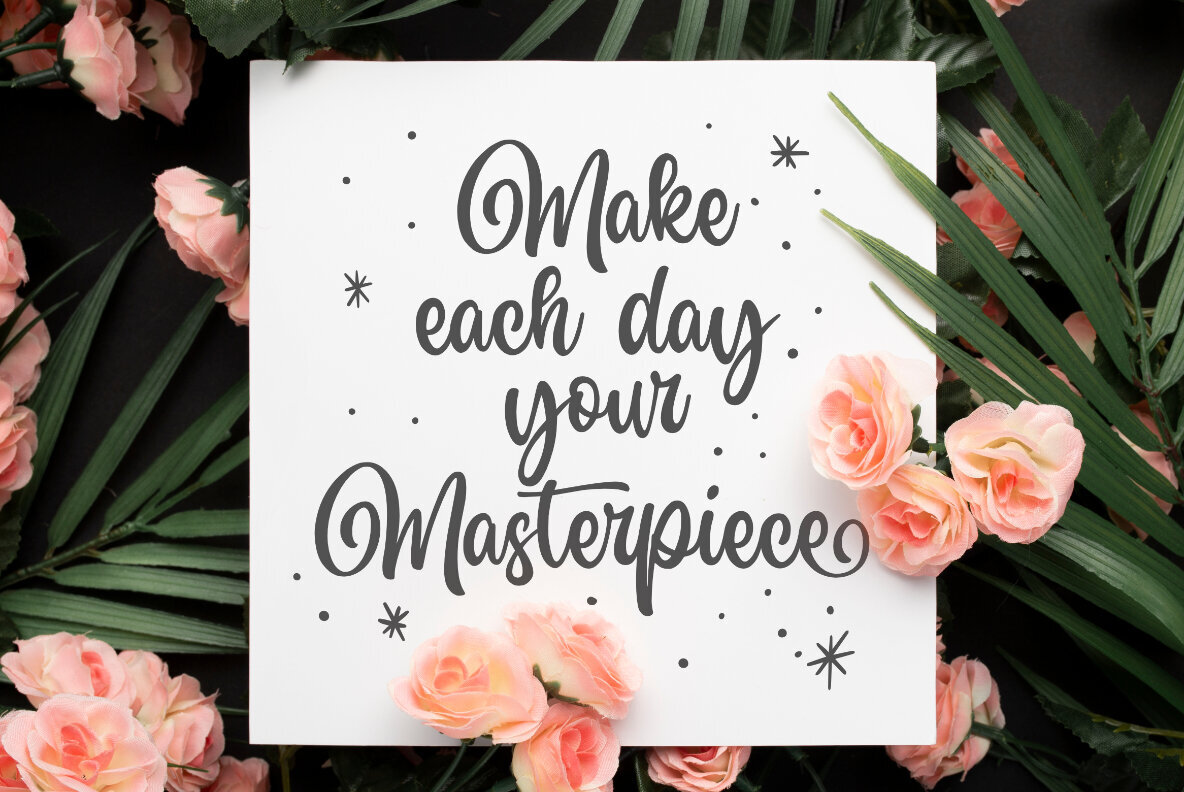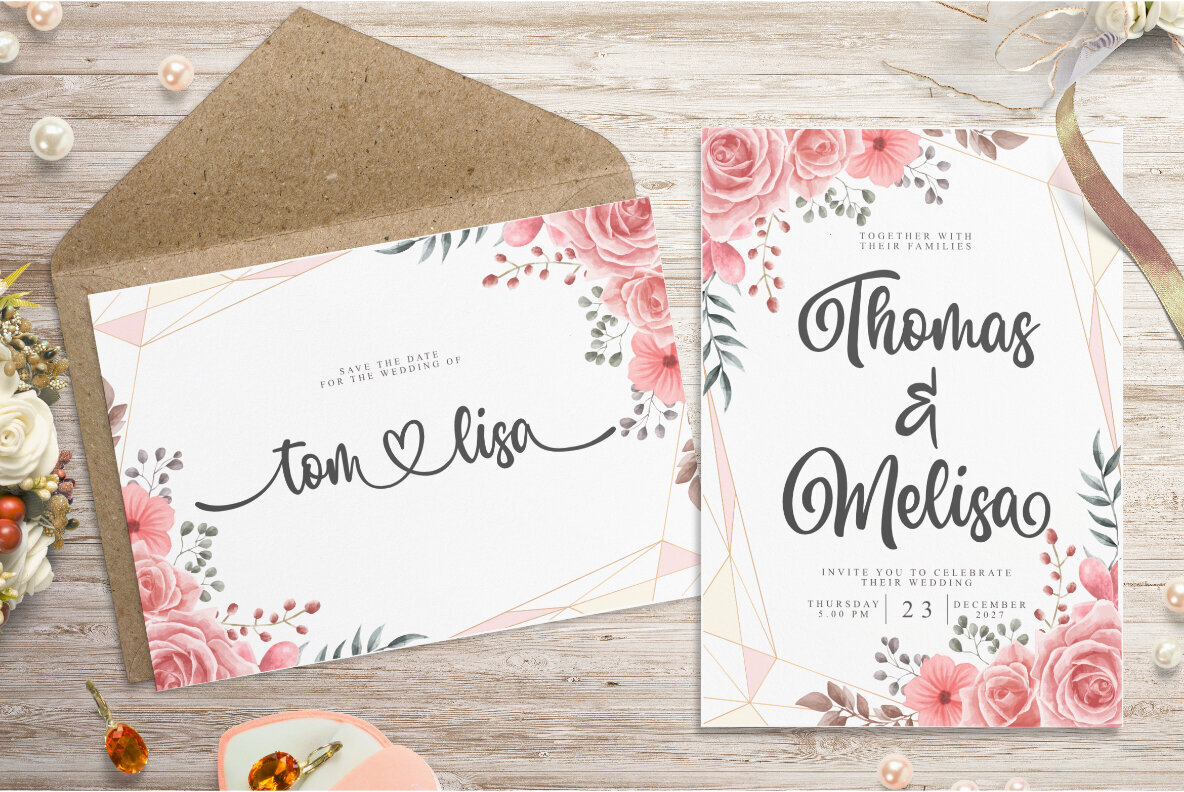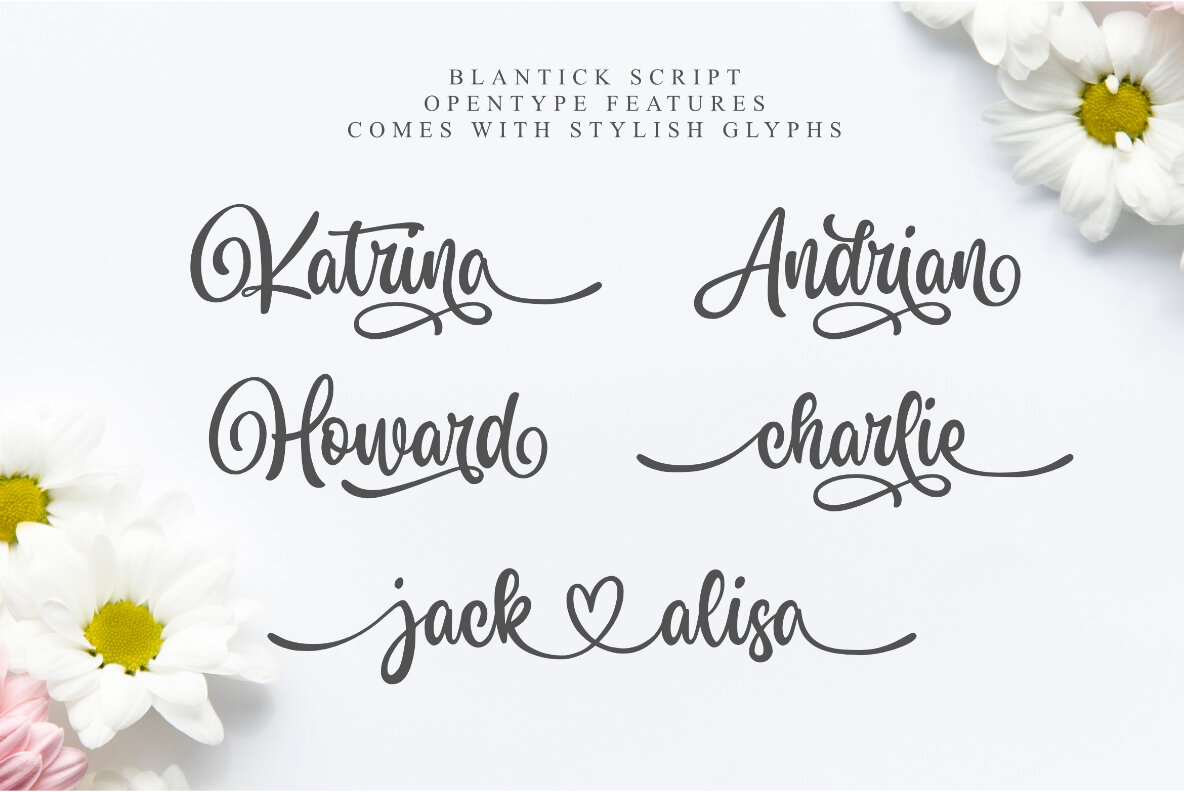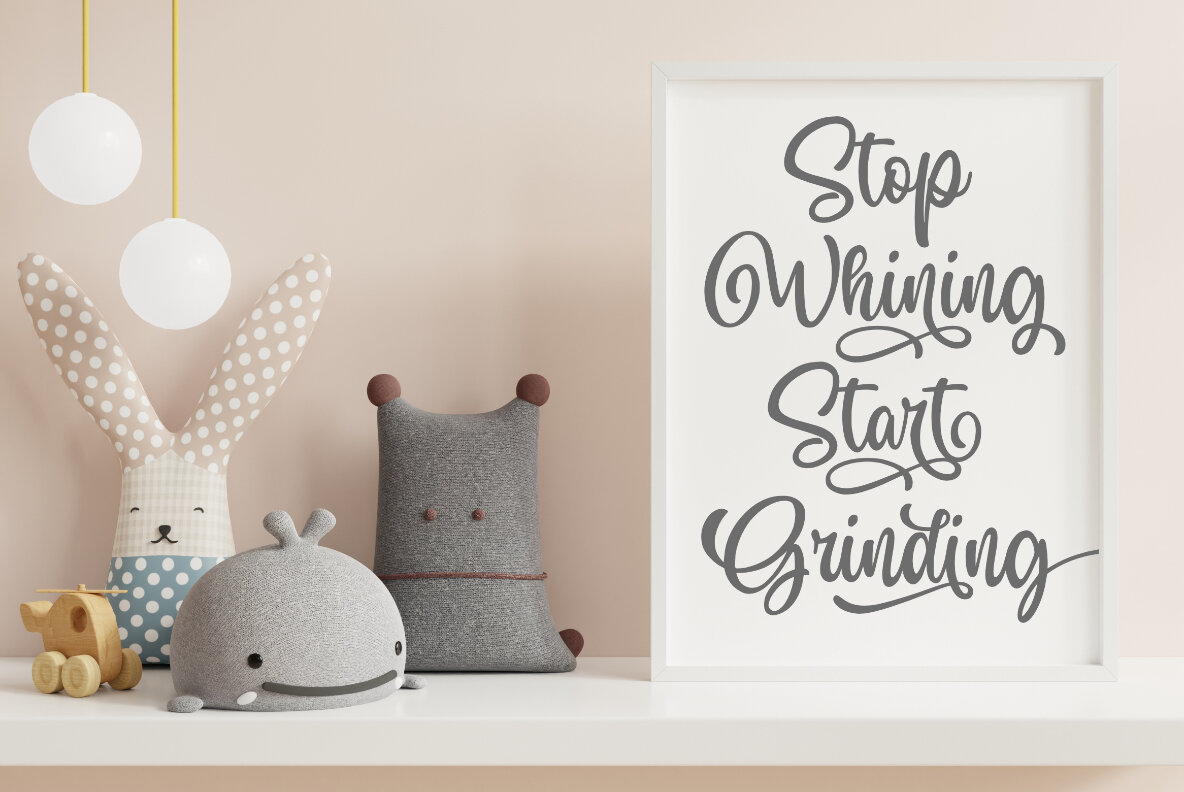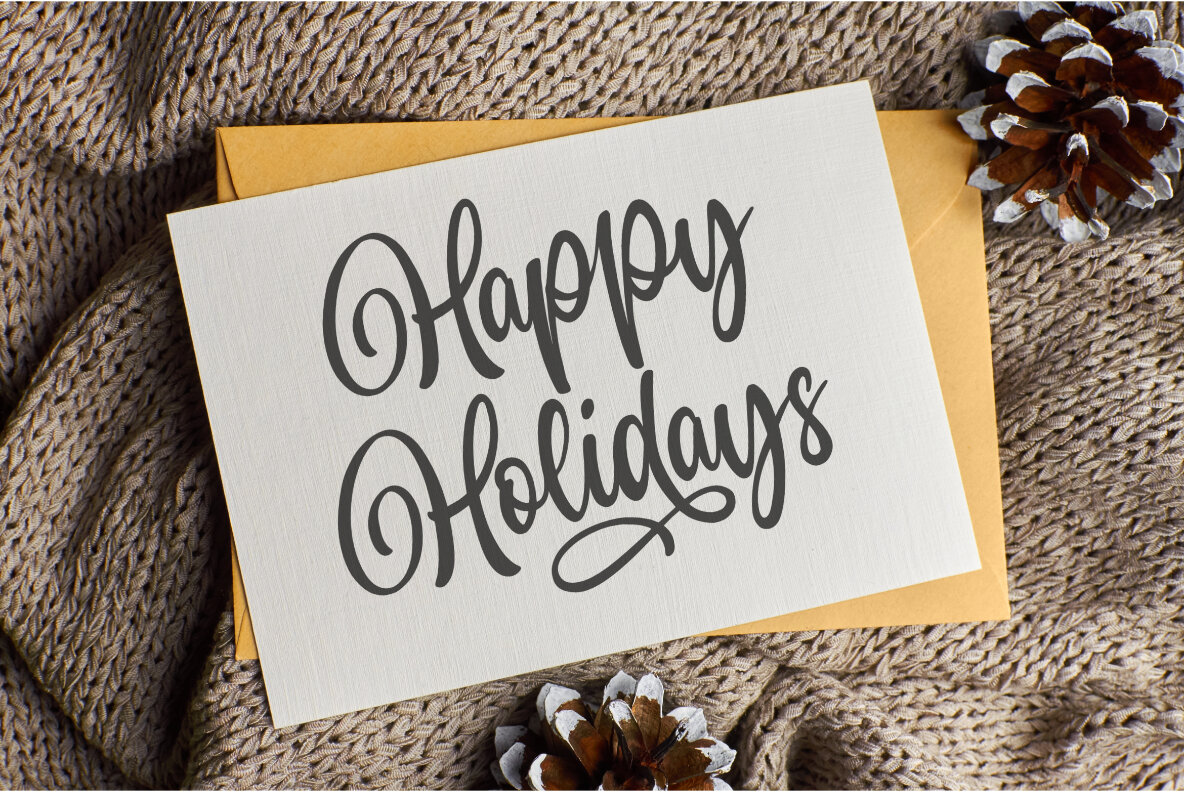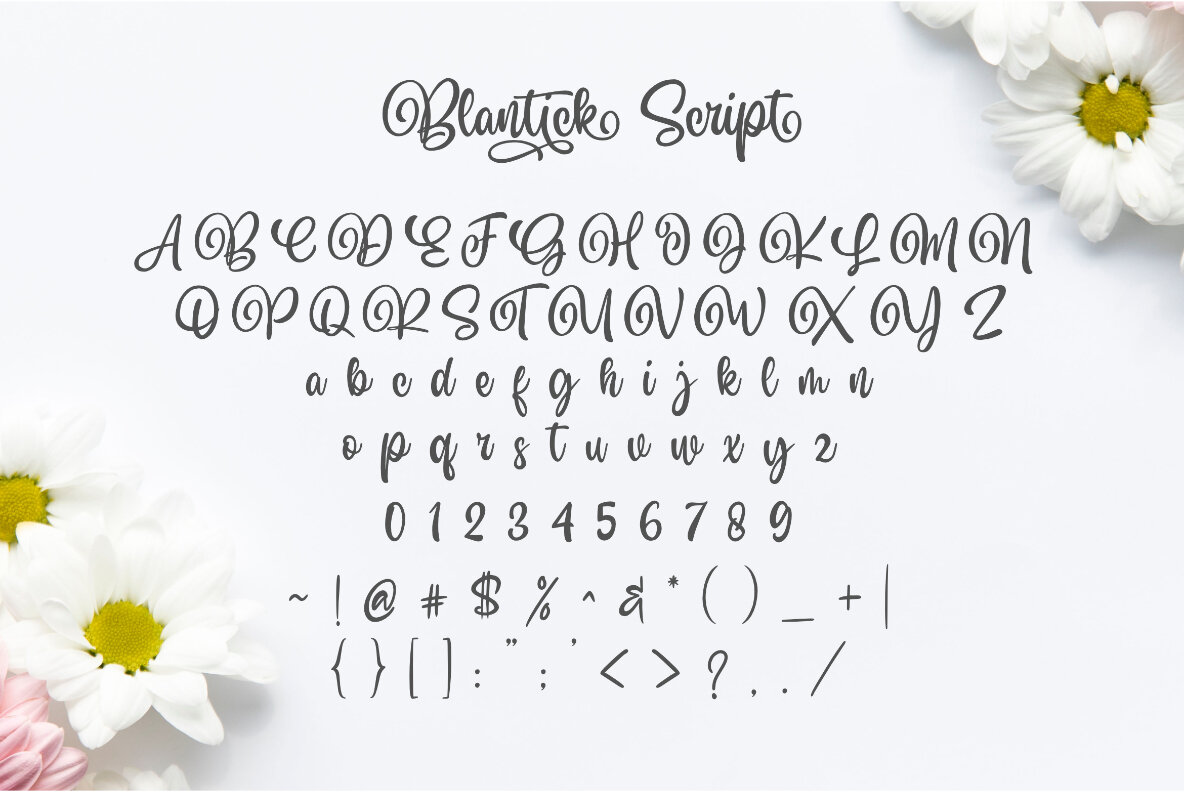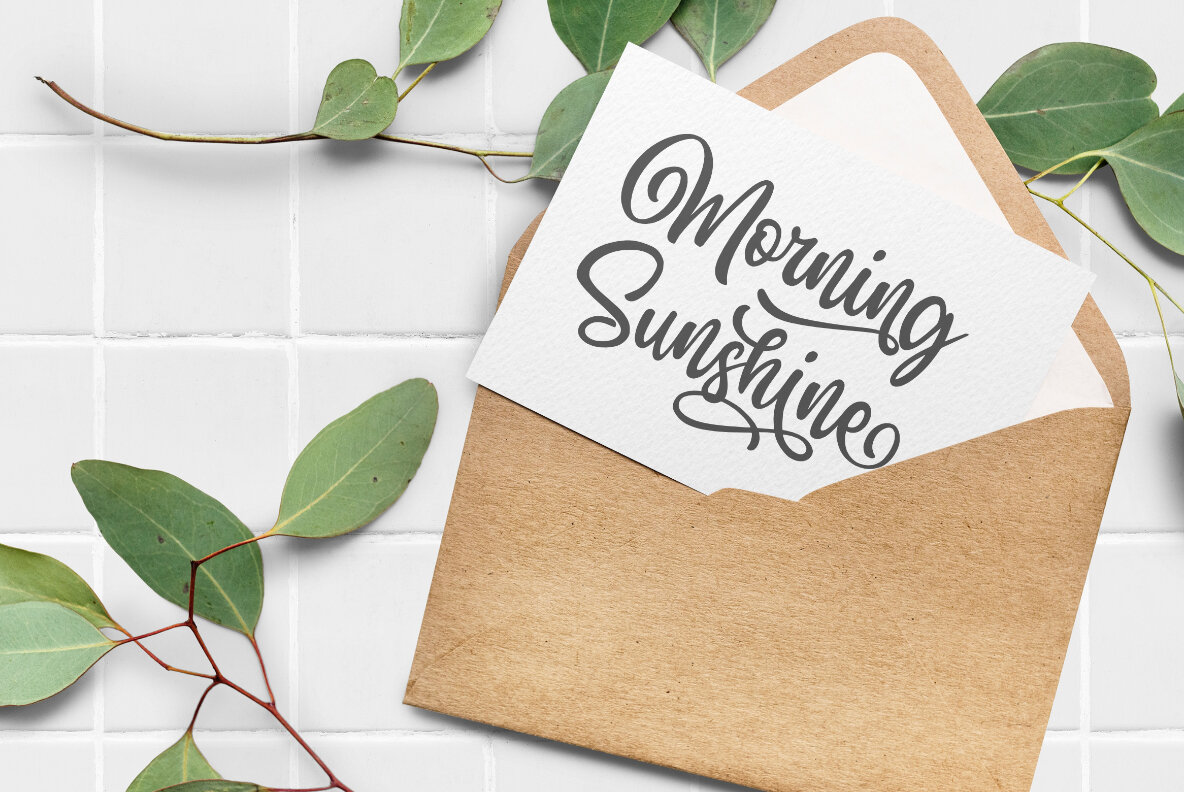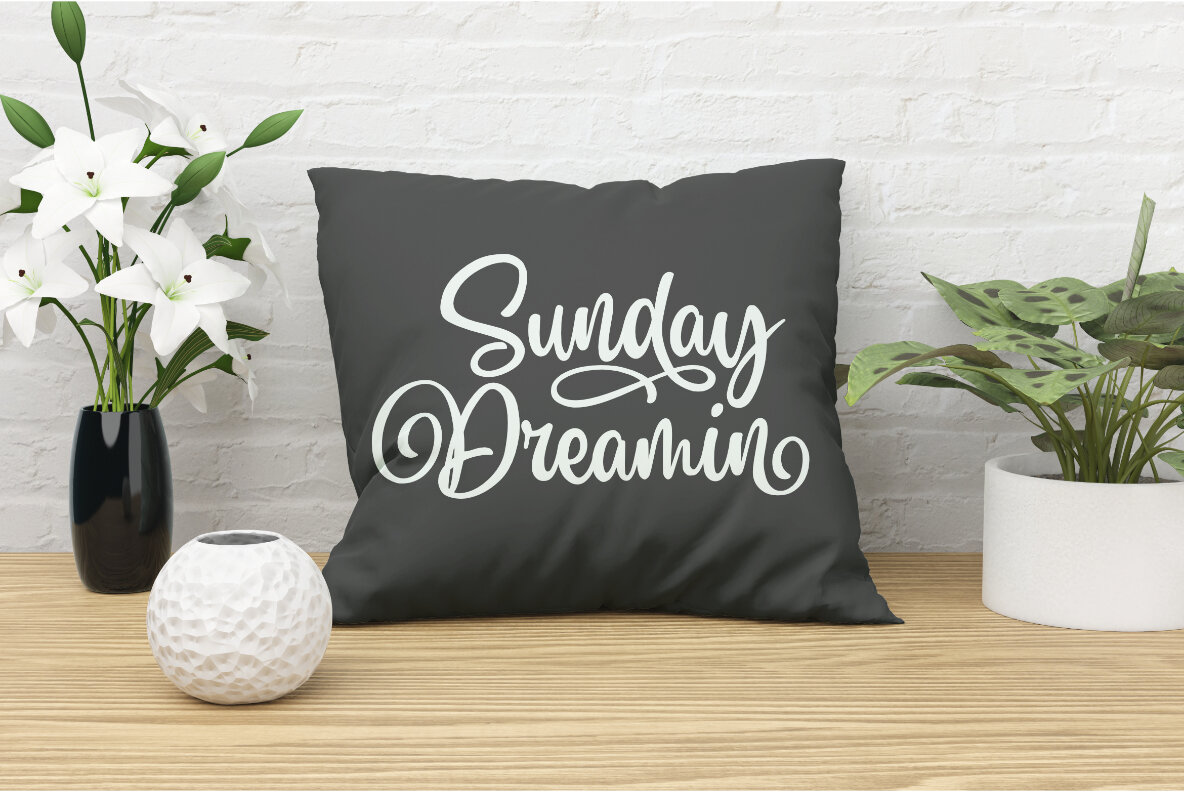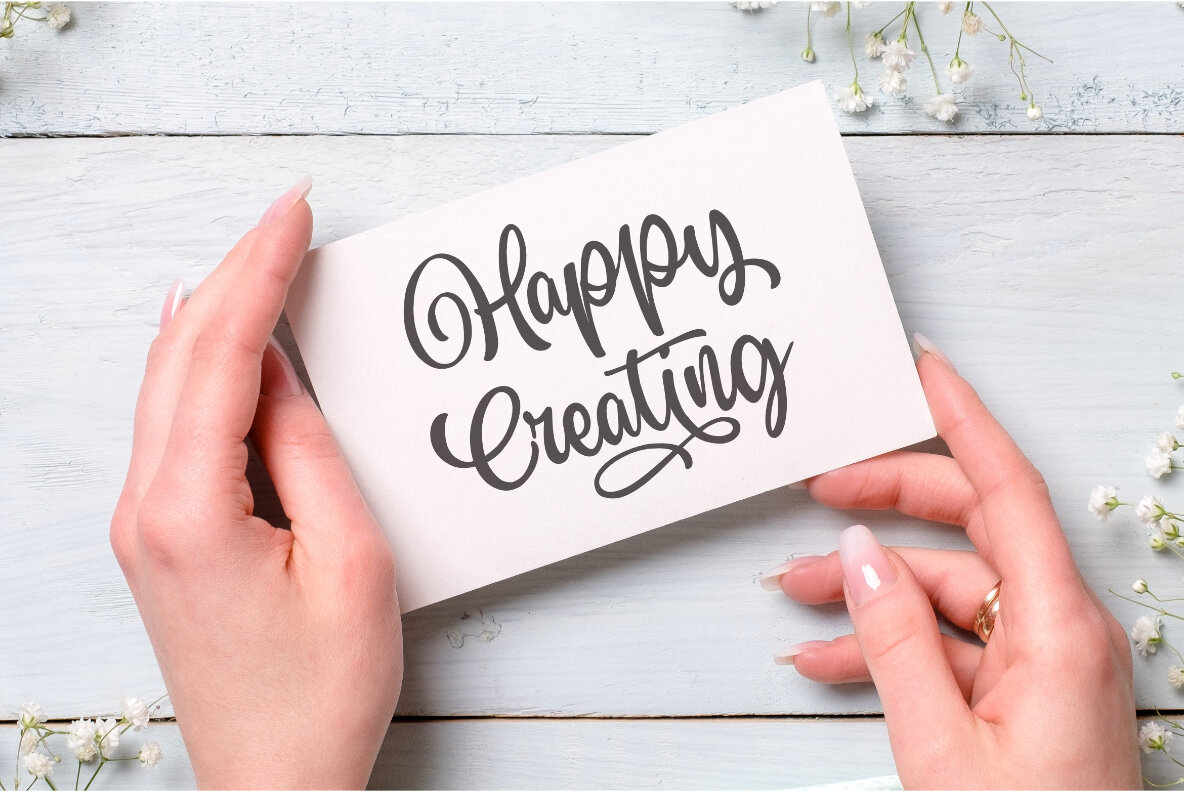
Blantick Font
Blantick Script
Blantick Script is a sweet and friendly handwritten font. Its natural and unique style makes it incredibly fitting for a large pool of designs. The only limit is your imagination!